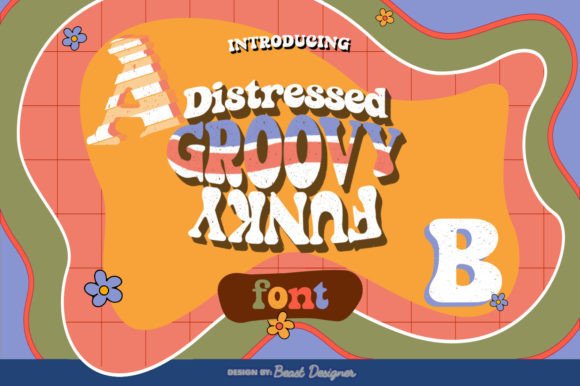
Journey back in time with Distressed Groovy Funky Font, a charismatic display font that oozes vintage charm. Designed by the visionary Beast Designer, this font is more than just a collection of glyphs; it's a gateway to a bygone era, where bell bottoms, peace signs, and psychedelic colors ruled the day.
With its playful and carefree spirit, Distressed Groovy Funky Font is an ideal choice for crafting retro designs that evoke a sense of nostalgia. Picture yourself creating eye-catching T-shirts with bold slogans, tote bags adorned with groovy patterns, or hats that channel the essence of the 1970s. Let your creativity run wild as you design stickers, wedding invitations, logos, and greeting cards that transport recipients to a simpler time.
The beauty of Distressed Groovy Funky Font lies in its incredible versatility. Its timeless style effortlessly blends with modern aesthetics, allowing you to create designs that feel both classic and contemporary. Whether you're a seasoned designer or just starting, this font is your secret weapon for creating designs that leave a lasting impression.
Imagine the impact of your designs when they're adorned with Distressed Groovy Funky Font. Your T-shirts will become conversation starters, your tote bags will turn heads, and your stickers will add a touch of whimsy to any surface they grace. Your wedding invitations will exude a unique charm that sets your special day apart, and your logos will command attention with their retro-inspired flair.
But Distressed Groovy Funky Font isn't just a pretty face. It's also incredibly user-friendly. The font is meticulously crafted to ensure smooth and crisp rendering, whether you're working on digital or print projects. Its extensive character set includes uppercase, lowercase, numbers, punctuation, and a range of special characters, providing you with all the tools you need to bring your creative visions to life.
So why settle for ordinary fonts when you can embrace the extraordinary? Distressed Groovy Funky Font is your ticket to creating designs that are both captivating and timeless. Its ability to seamlessly blend vintage charm with modern sensibilities makes it a must-have for any designer looking to add a touch of nostalgia to their work.